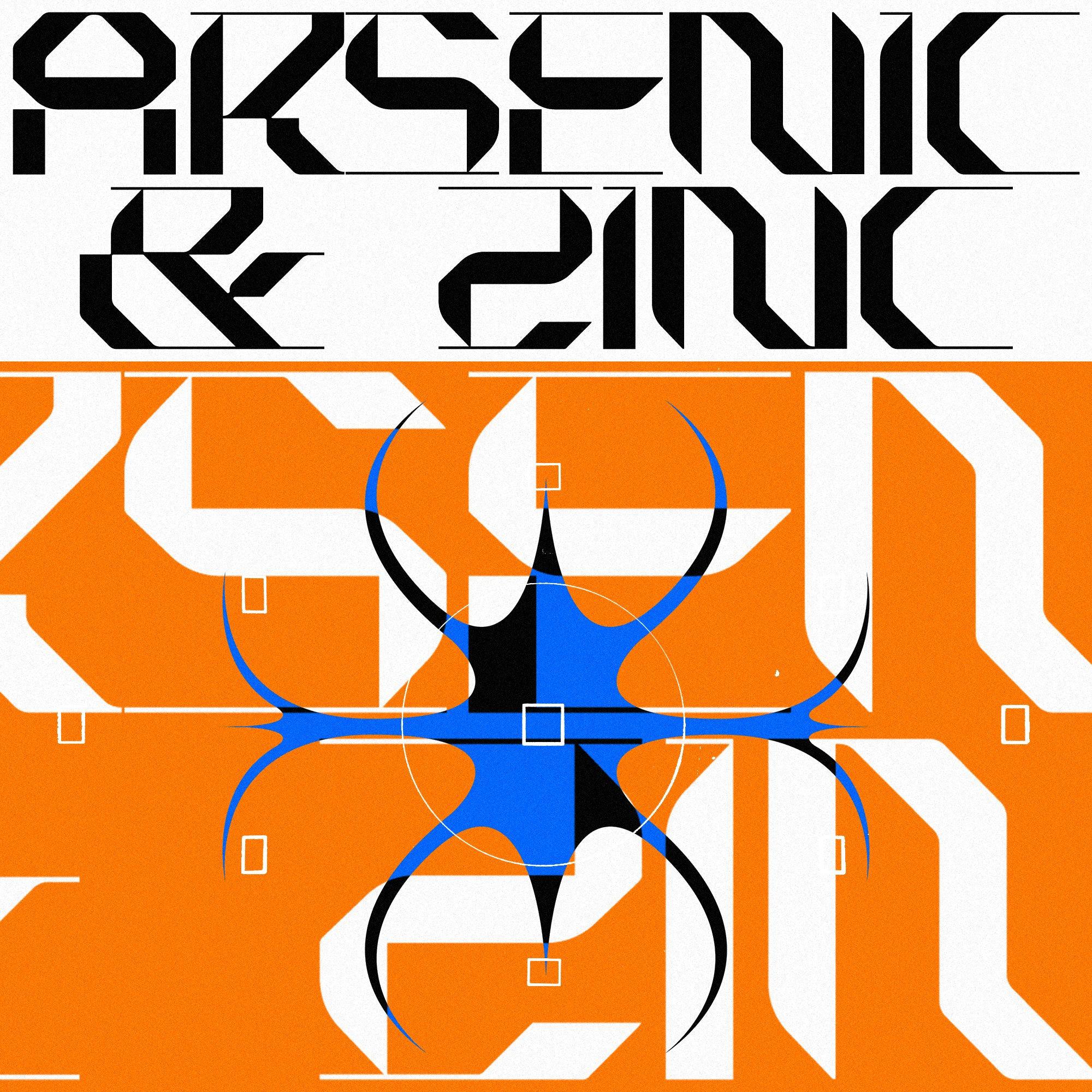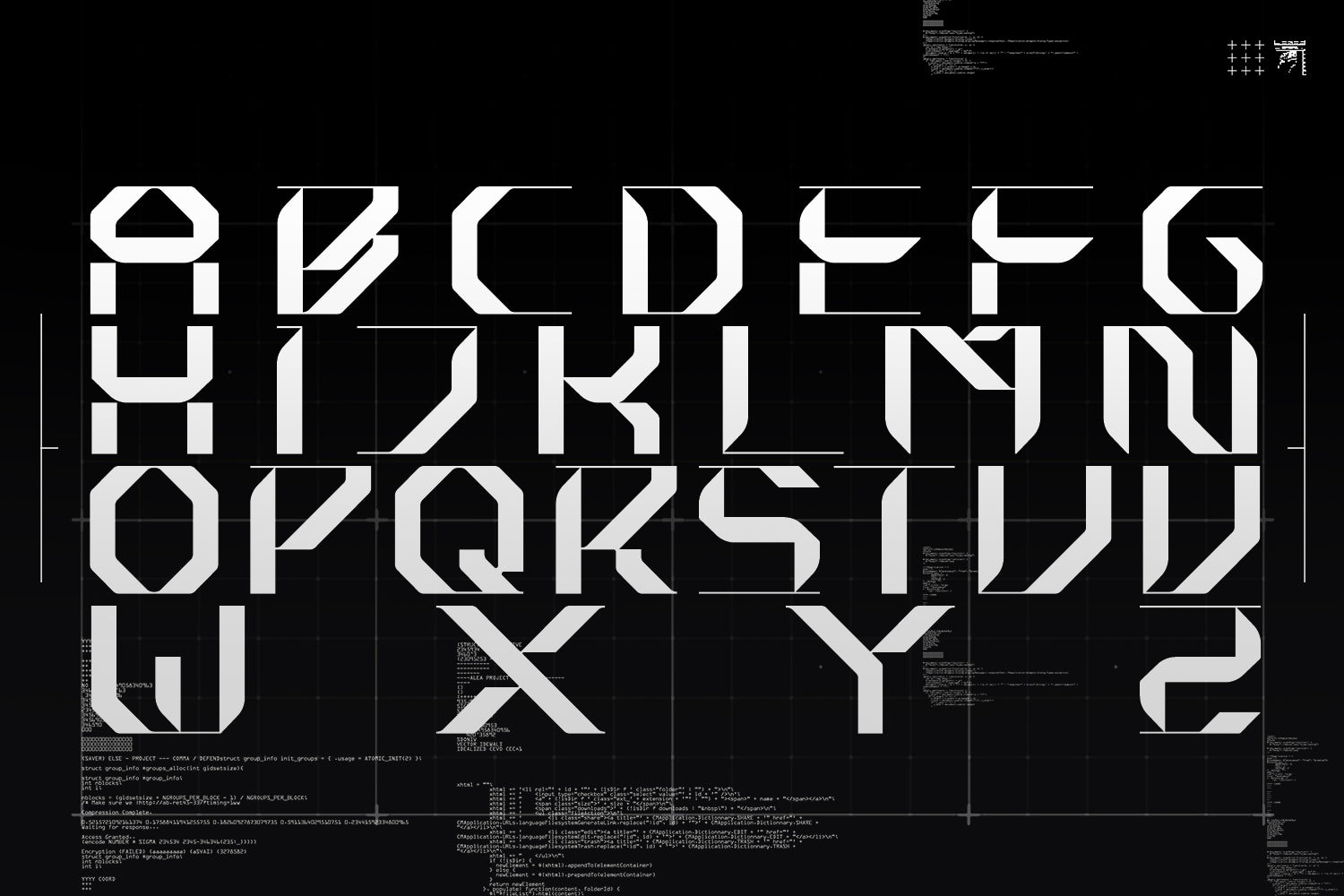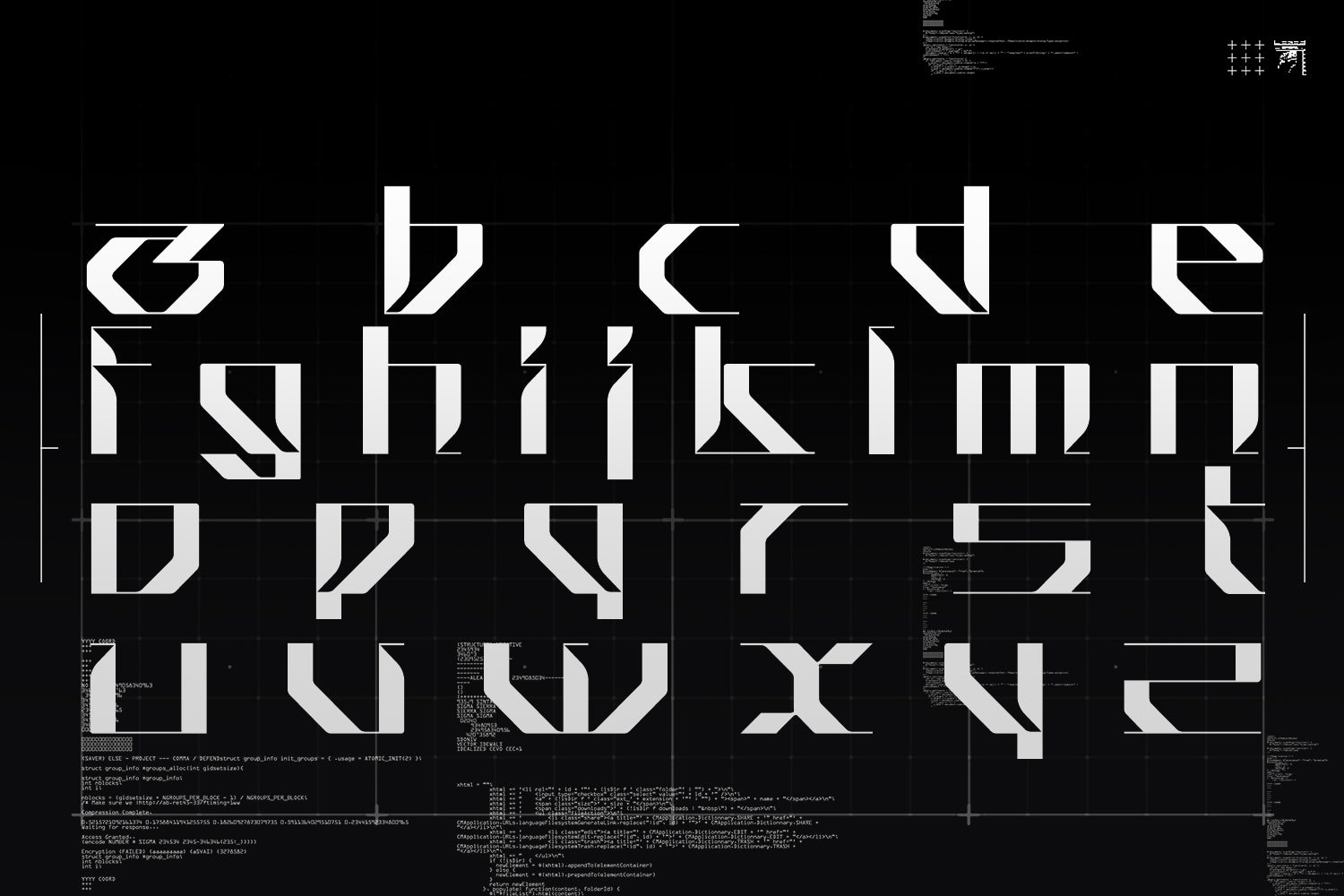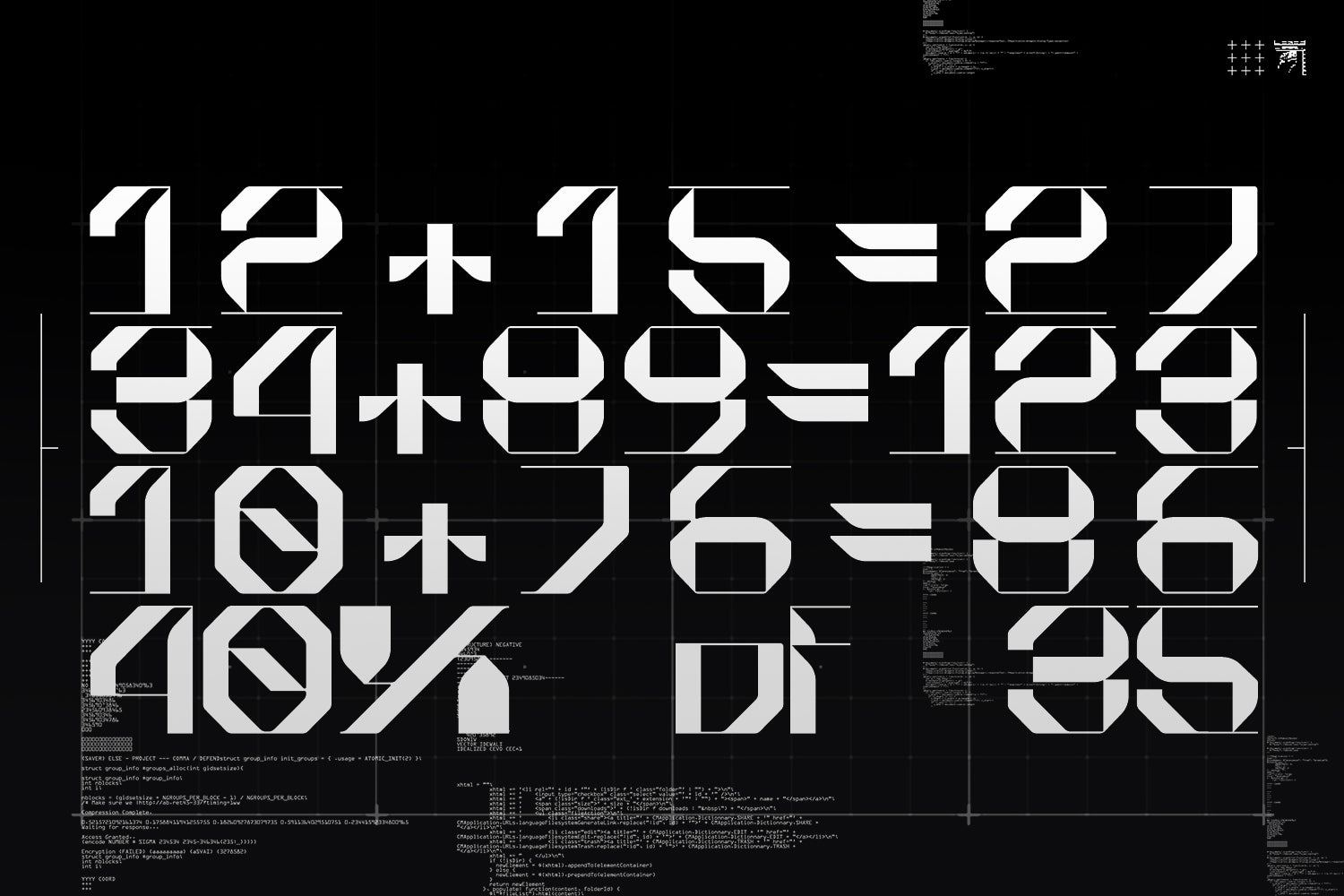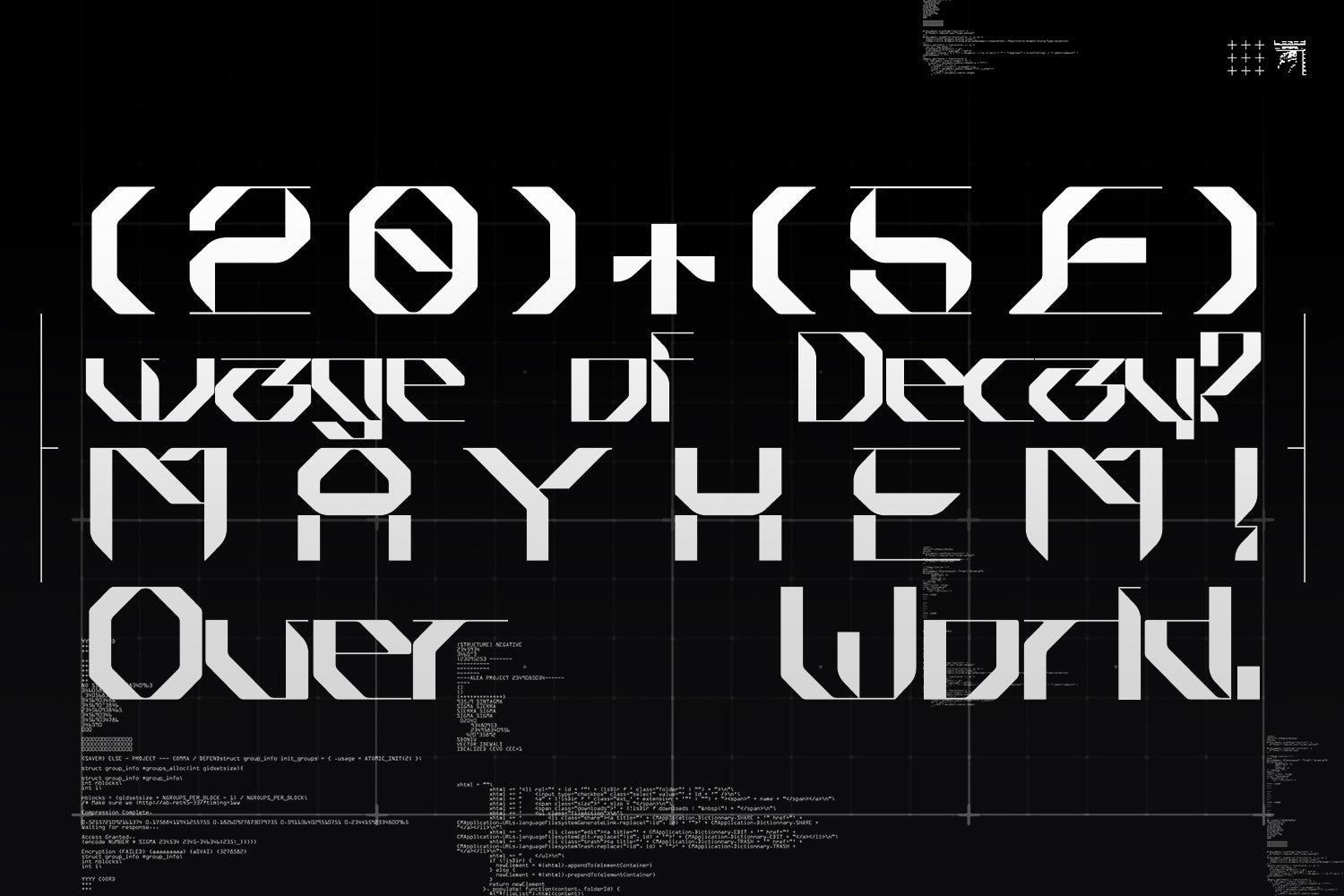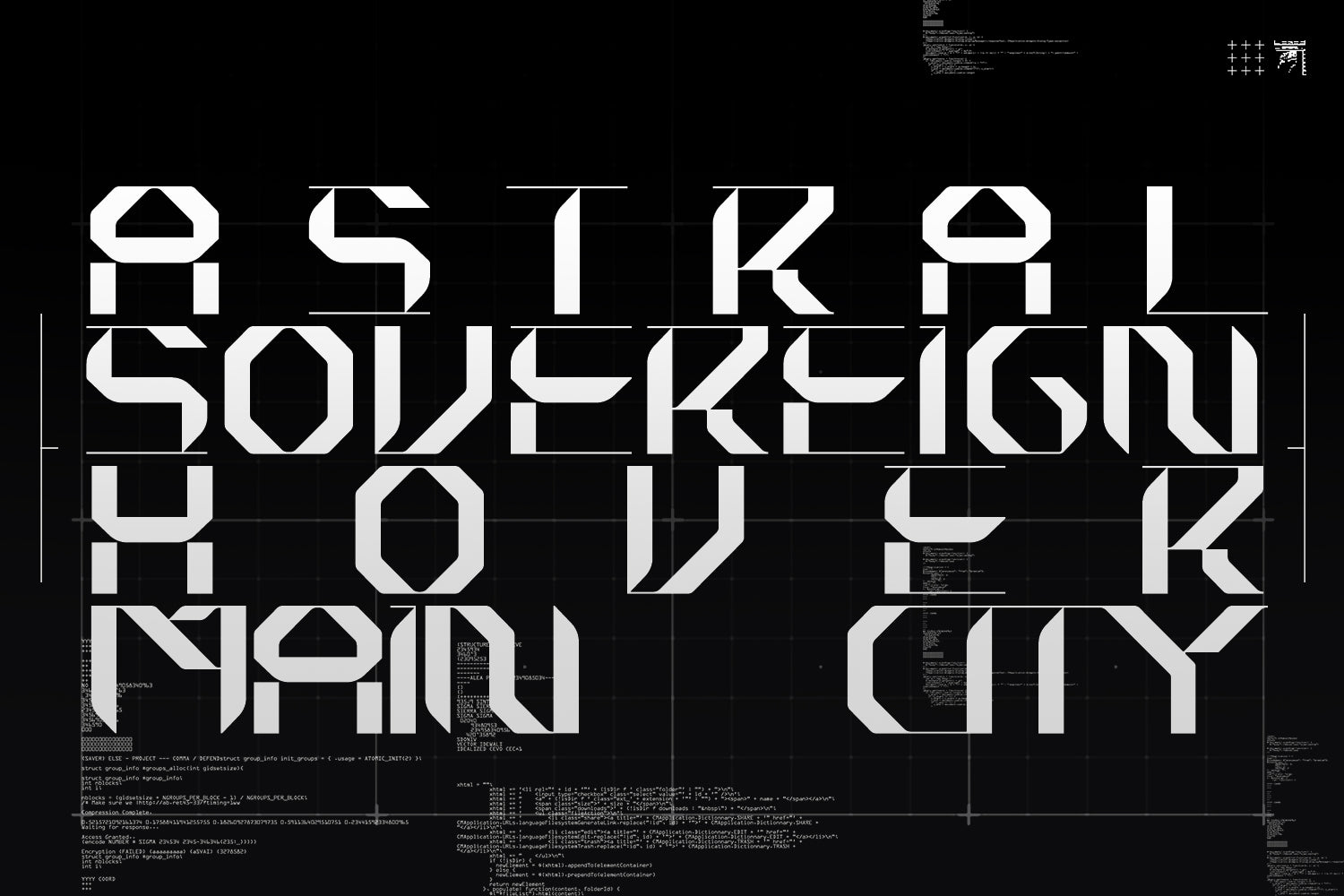
Arsenic & Zinc Typeface
"Arsenic & Zinc Typeface" is a display font with a robust and sharp design, suitable for industrial or futuristic projects. It includes both large and small letters, symbols, and numbers, and is supplied in .otf format.
Ideal for industrial and futuristic graphic design projects. Perfect for posters, branding, and album covers, ensuring a unique and iconic visual impact.